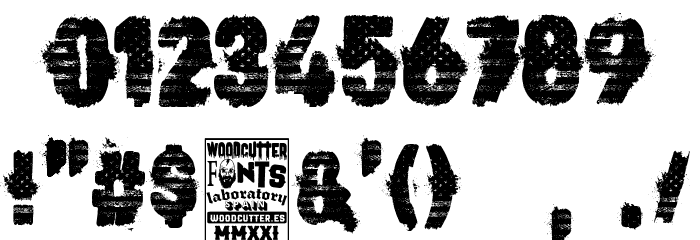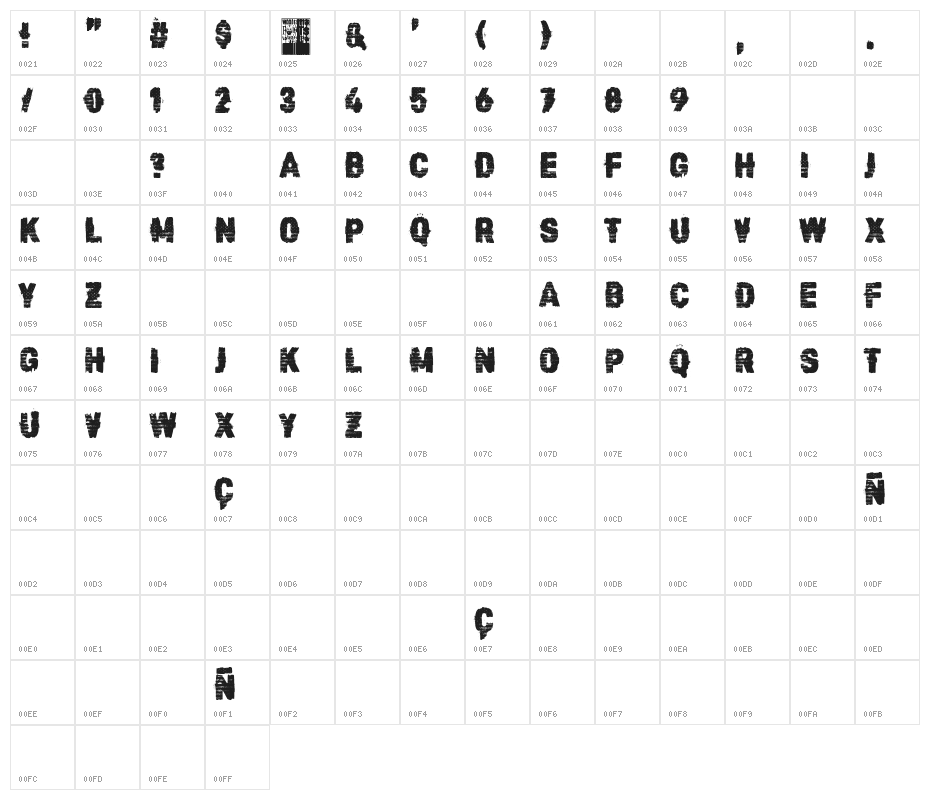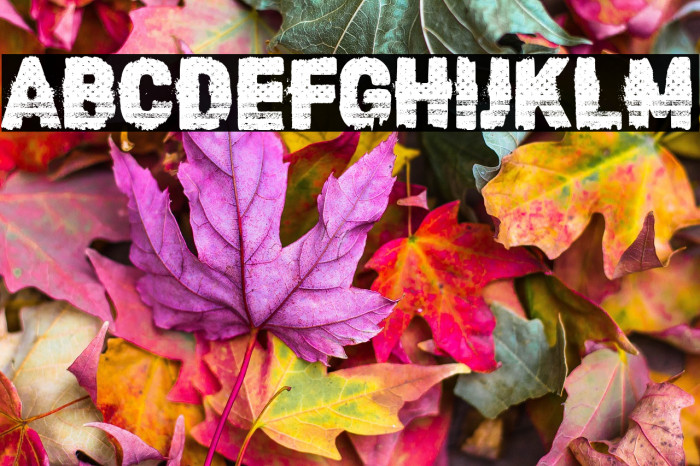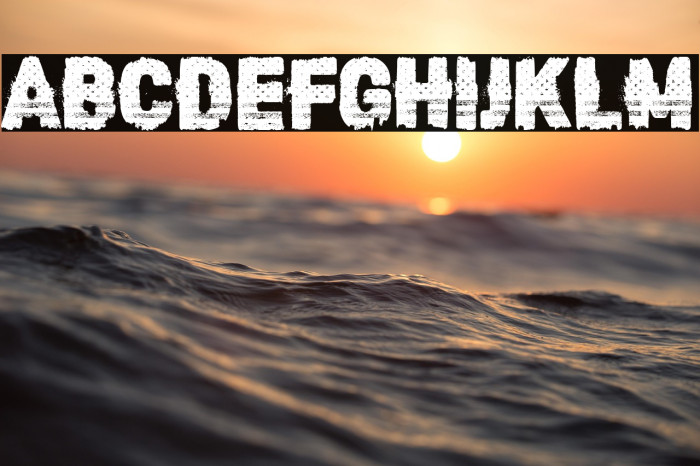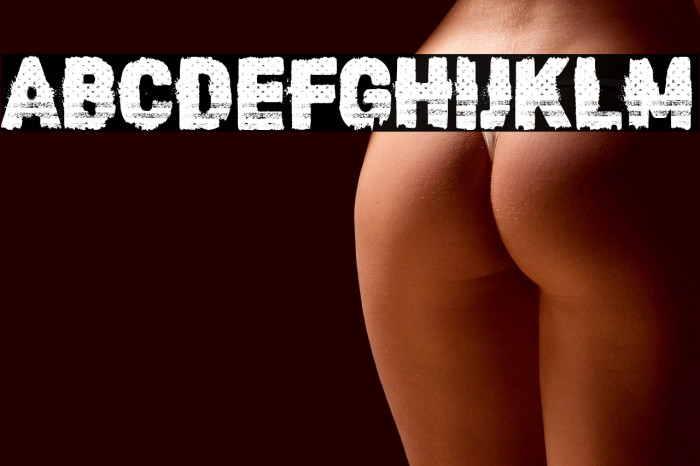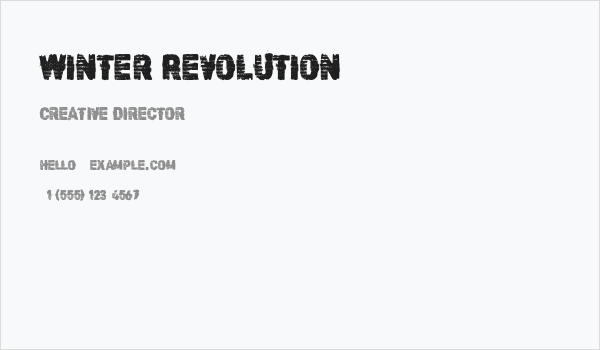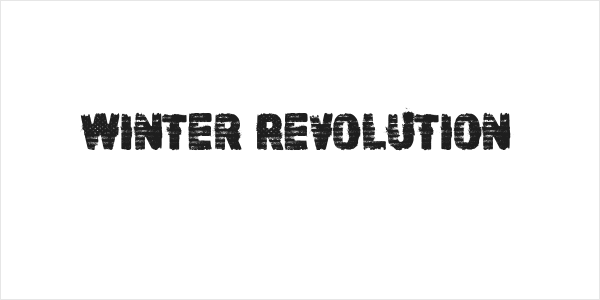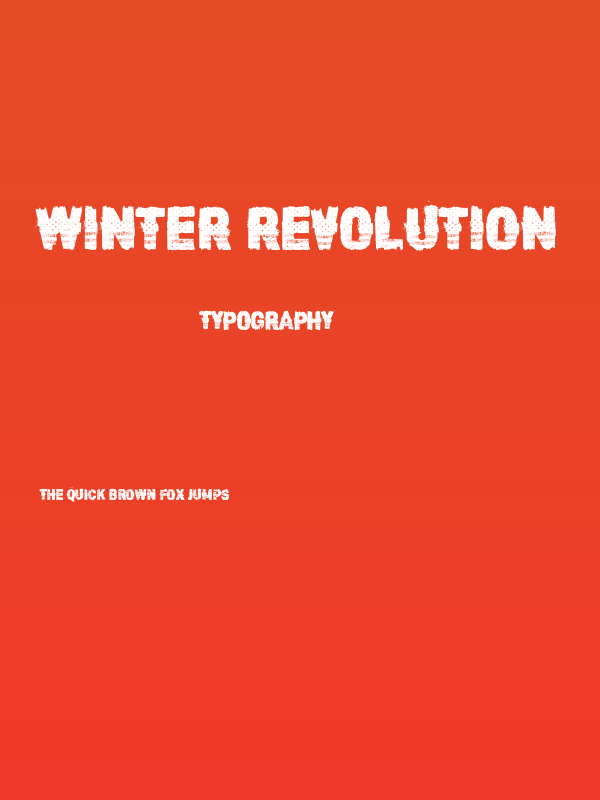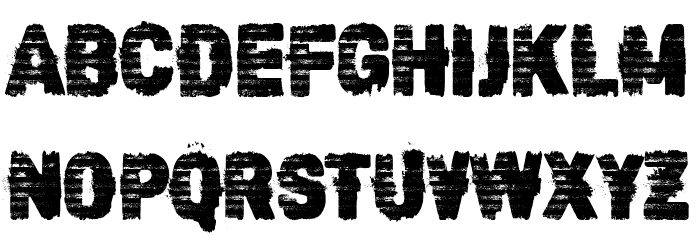
Winter Revolution Font
Winter Revolution Description
This font features a bold and distressed style, reminiscent of weathered or eroded surfaces. The characters are uppercase and lowercase, with numerals and a selection of special characters. Each letter has a rough texture, giving it a rugged and gritty appearance. The font's design is impactful and eye-catching, making it suitable for projects that require a strong visual presence. The irregular edges and textured finish add a sense of movement and dynamism, making it ideal for creative and artistic applications.
| Proposed Projects | Ideal for posters, album covers, branding, and any project requiring a bold, gritty aesthetic. |